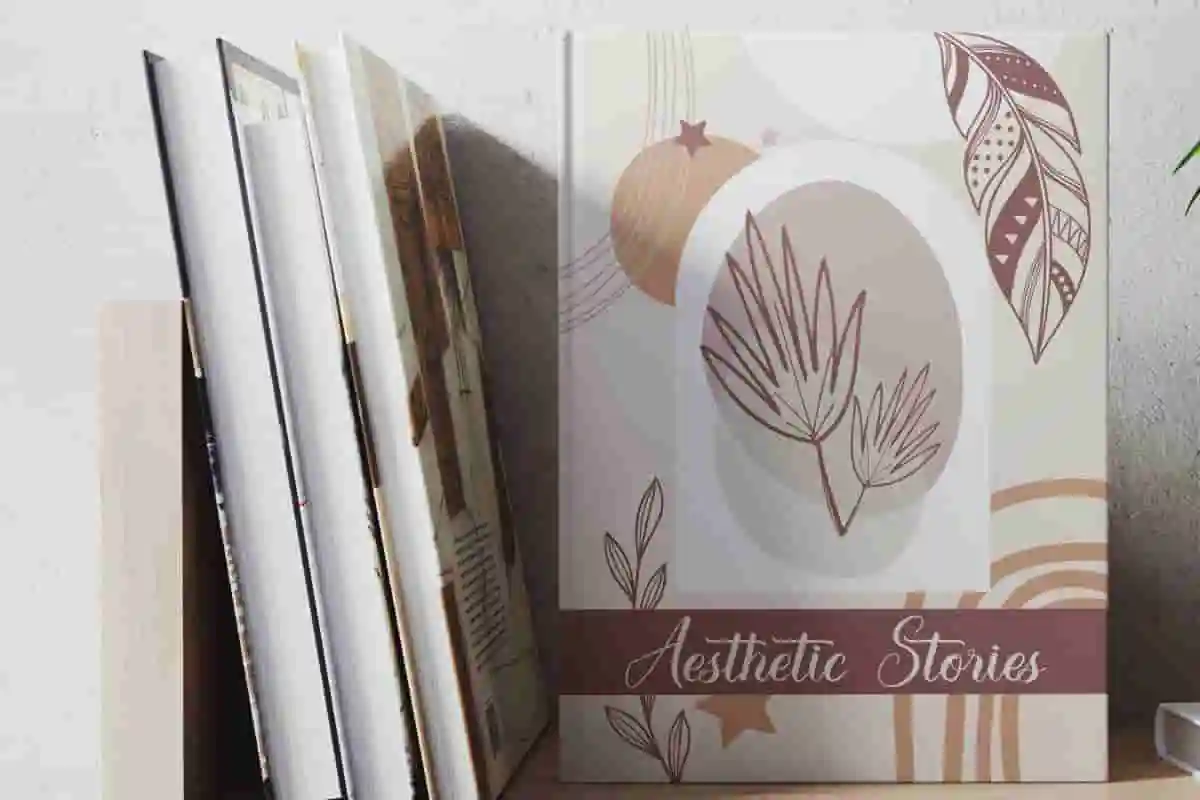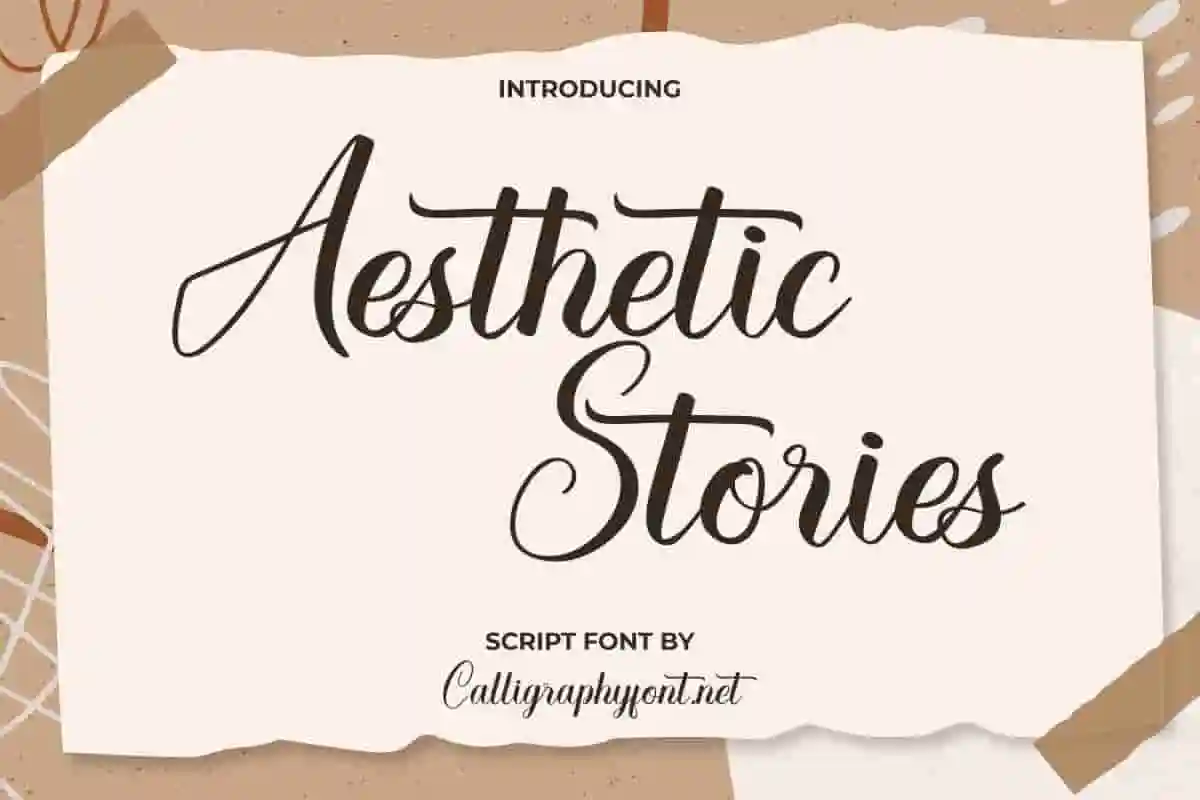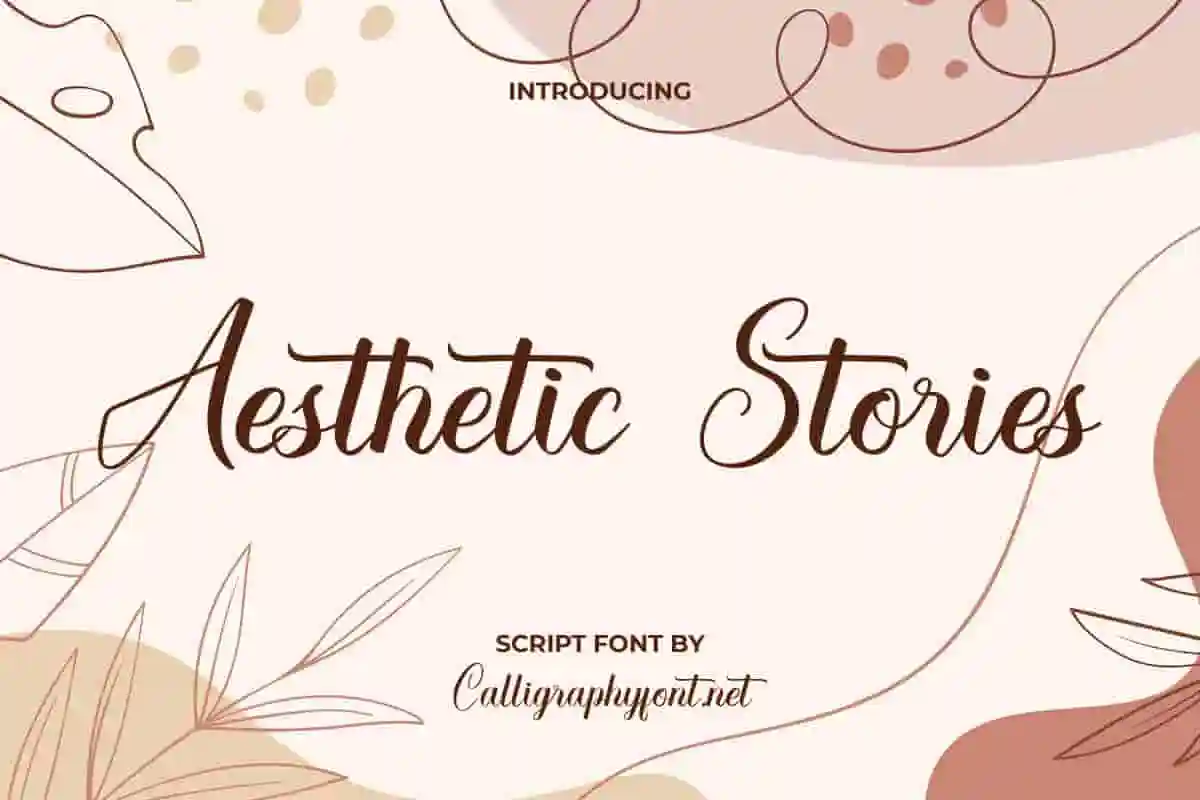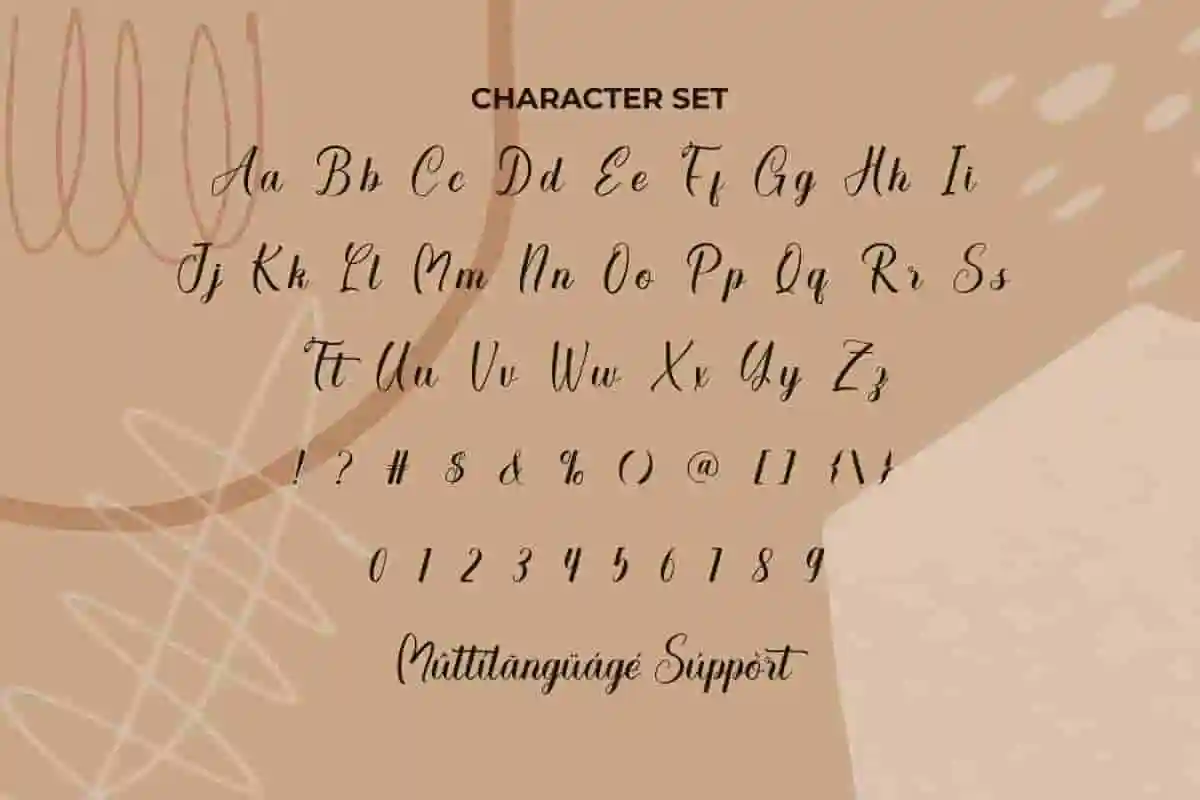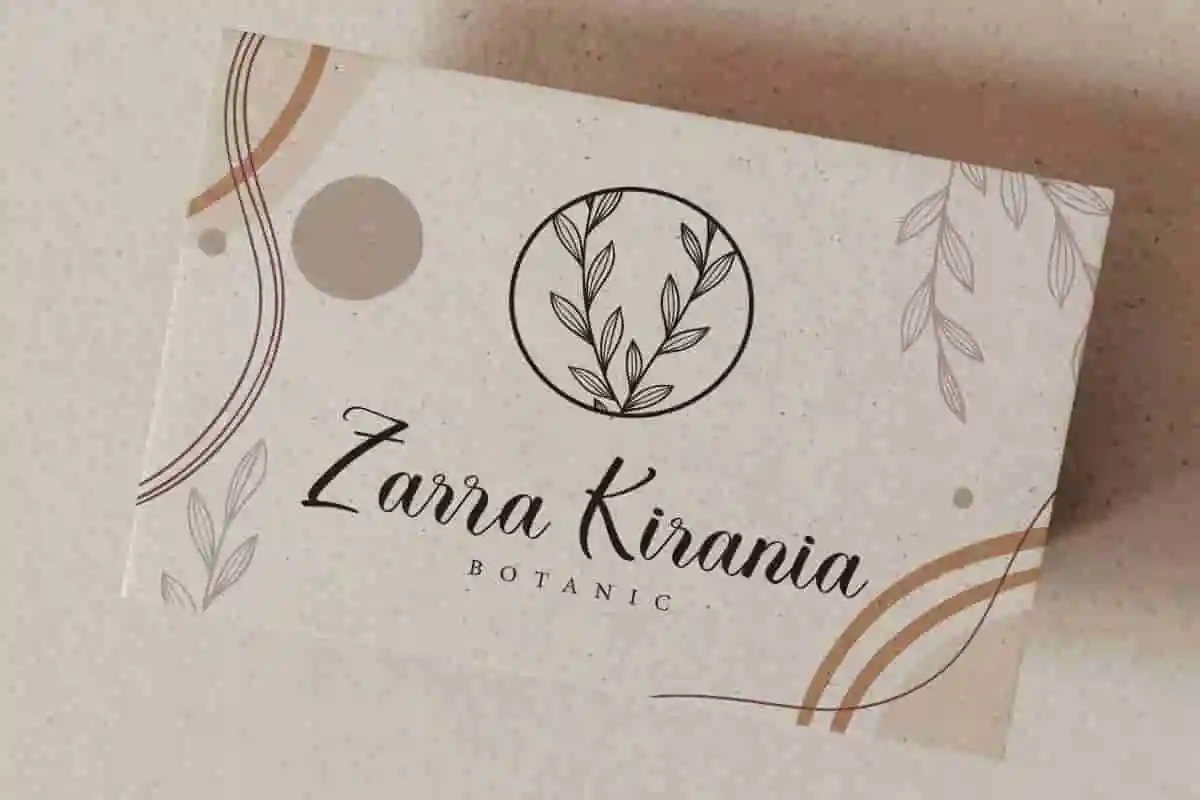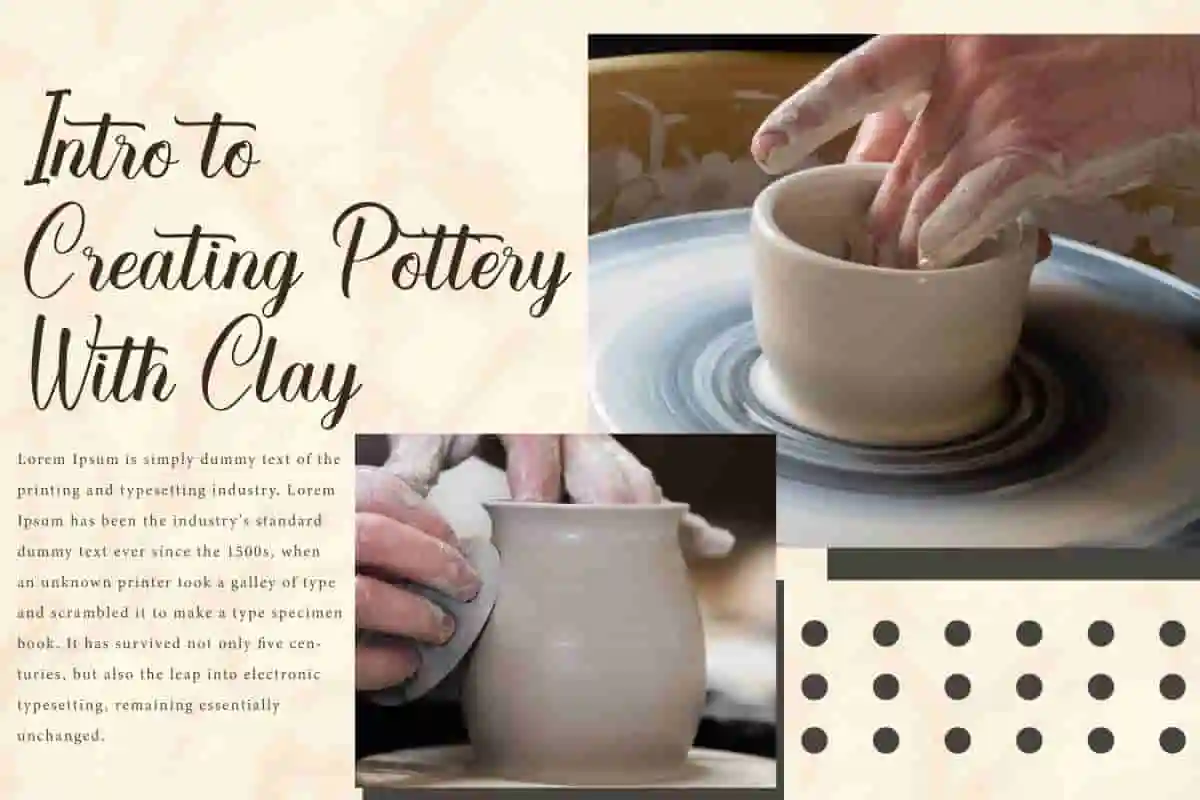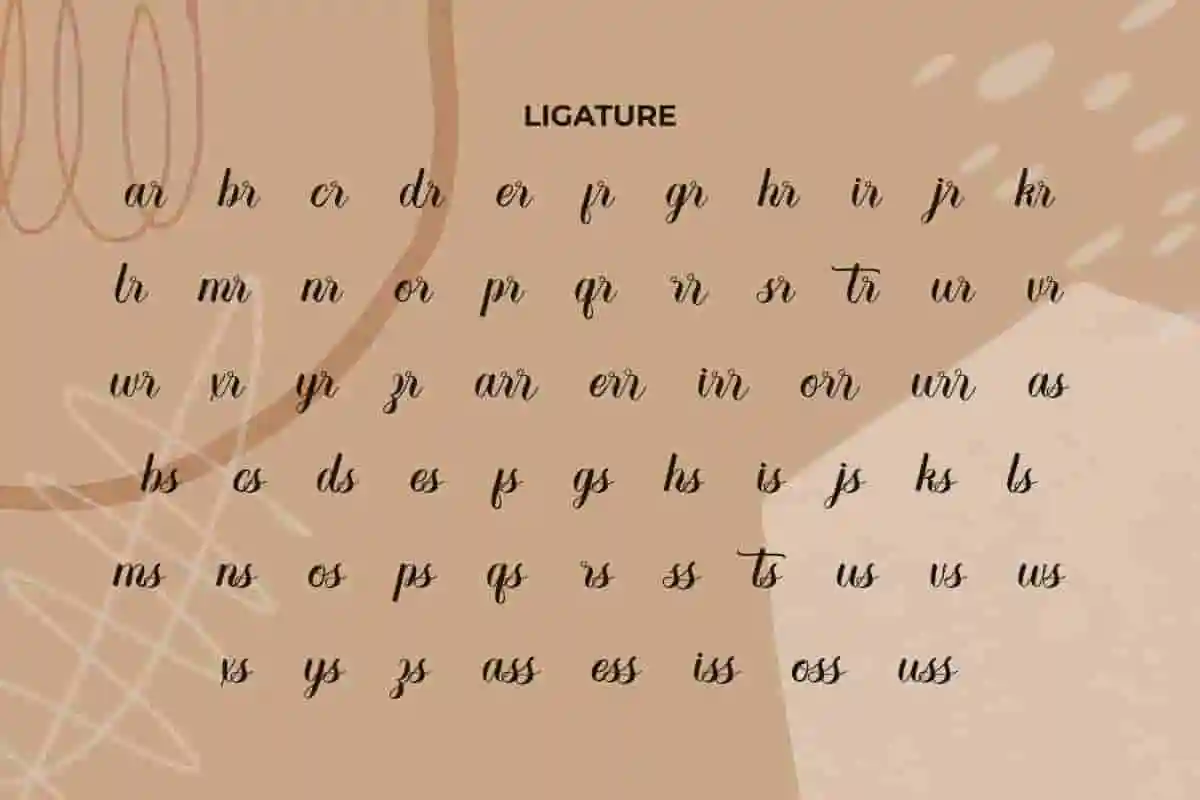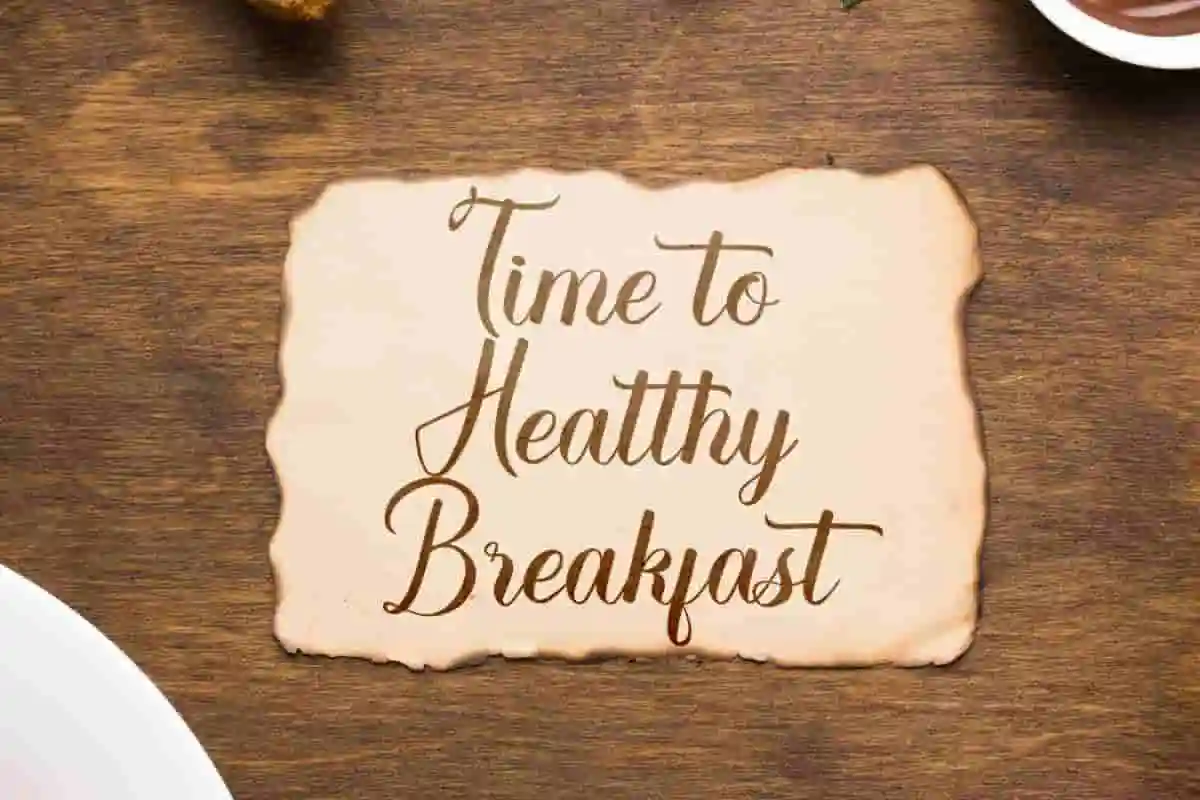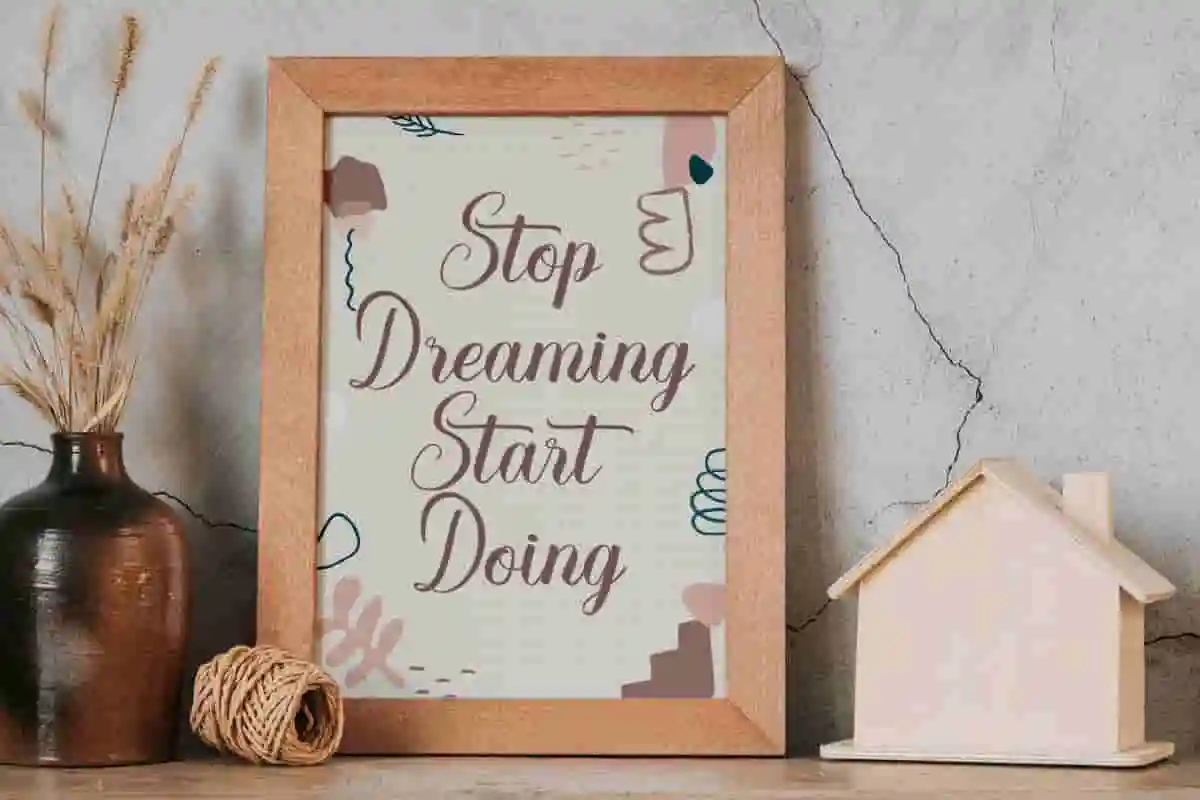
Aesthetic Stories Font
Aesthetic Stories Font is a stylish calligraphy script font that carries an aesthetic brush lines appearance. This font will be perfect for architect, botanical engineer, brochure, business card, cover, library, pottery, quote, and much more.
Aesthetic Stories Font is a stylish calligraphic font with a fresh look. This typography are clean and artistic appearance makes it classy and suitable for any industry, such as architect, café, clothing brand, event organizer, florist, furniture, handicrafts, homeware, jewelry, library, pottery, printing, publishing, real estate, restaurant, skincare, spa salon, writer, and many more.
Aesthetic Stories Font is a special typeface that exists and make a great choice for use as main text or paired with other font types. This font will be perfect for any project, such as billboard, brand logo, brochure, business card, catalog, cover, invitation, label, menu sheet, packaging design, quote, screen print, signage, stationery, title, website, and other projects that require an aesthetic typeface.
Aesthetic Stories Font comes with a full set of Uppercase and Lowercase Basic Characters, Number, a large range of Punctuation and Symbol. It also equipped with Ligature characters that will bind perfectly. It supports multilingual characters and ready to use both on Windows machine or Mac with simple installations. It’s tested to work well in the Adobe Apps (Illustrator, Adobe InDesign, Adobe Photoshop) CorelDraw, and others. PUA Encode Characters means you can access all the characters easily – Fully accessible without additional design software.